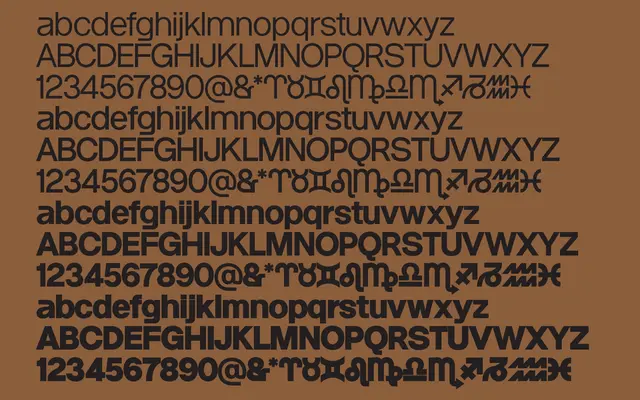
Astral Grotesk
A character-forward display grotesque from Simon Bent, drawing on the expressive typography of the 1970s rather than pursuing neutrality.
Designed by Simon Bent and due for full release in late 2025, this display grotesque wears its personality openly, rooted in the dynamic and often idiosyncratic type culture of the 1970s. Five weights run from Light to Bold within a single upright style, reflecting the early-stage nature of the release at version 0.3. It positions itself against the prevailing tendency toward neutral grotesques, favouring a more distinctive voice.
Explicitly described as a display grotesk drawing on 1970s typography; the single style and character-forward approach place it firmly in the display category rather than a text grotesque.